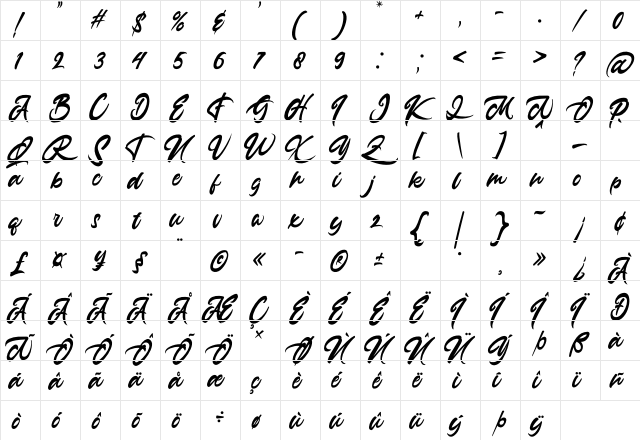
Anasite Malela 3 Regular
Design Context for Anasite Malela 3 Typeface
Anasite Malela 3 is a composed and adaptable typeface that performs quietly and consistently across a wide range of design contexts.